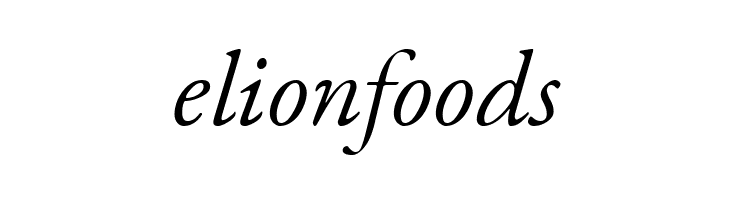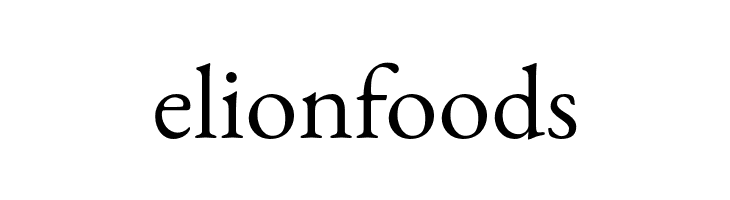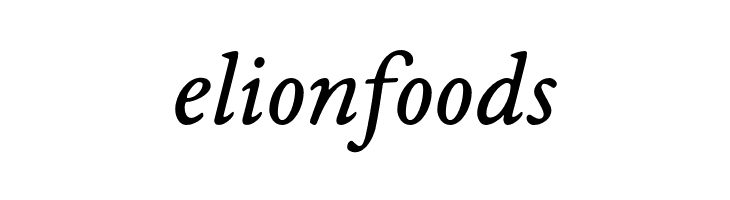
A classic serif font with elegant, balanced proportions and refined details.
An elegant, classic italic serif font with refined, flowing characters.
A classic serif font with elegant proportions and refined details.
A classic, elegant serif font with a graceful italic style.
A classic serif font with elegant, balanced letterforms and refined details.
A classic serif font with elegant, refined strokes and moderate contrast.
A bold, classic serif font with high contrast and elegant serifs.
A bold, italic serif font with a classic and elegant style.
A bold, classic serif font with high contrast and elegant letterforms.
A bold, italic serif font with classic elegance and strong presence.
Ornate initials with intricate decorative patterns, exuding elegance and sophistication.
An ornate, decorative font with intricate floral embellishments.
A classic serif font with high contrast and elegant letterforms.
An elegant serif font with a classic italic style and refined serifs.
A classic serif typeface with medium weight and elegant detailing.
A classic, elegant serif font with an italic style and medium weight.
A classic serif typeface with elegant proportions and refined serifs.
A classic serif font with elegant small caps and refined detailing.
A classic serif font with semi-bold weight and moderate contrast, ideal for elegant and authoritative designs.
A classic serif font with a semi-bold weight and elegant italic style.
A classic serif font with small caps and moderate contrast, ideal for formal and traditional designs.
A classic serif font with elegant, traditional letterforms and balanced design.
A bold, modern font with a mix of solid and striped elements, offering a futuristic and sophisticated look.
A bold, modern font with high contrast and tight spacing, ideal for headlines.
A decorative outline font with a blend of geometric and organic shapes.
A modern sans-serif font with geometric shapes and uniform strokes.
An ultra-light, minimalist font with a modern and sophisticated design.